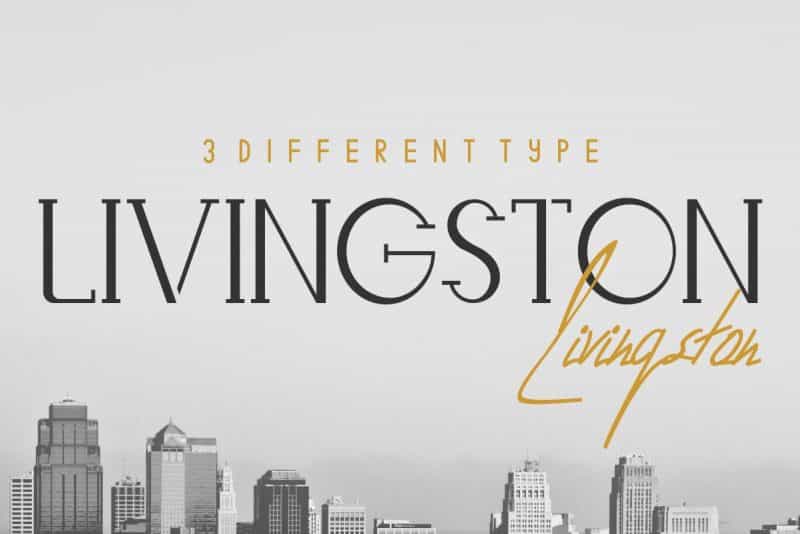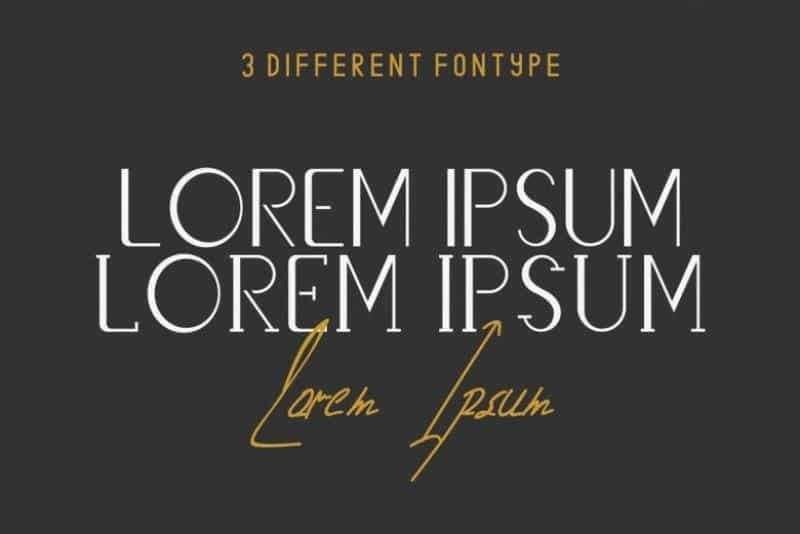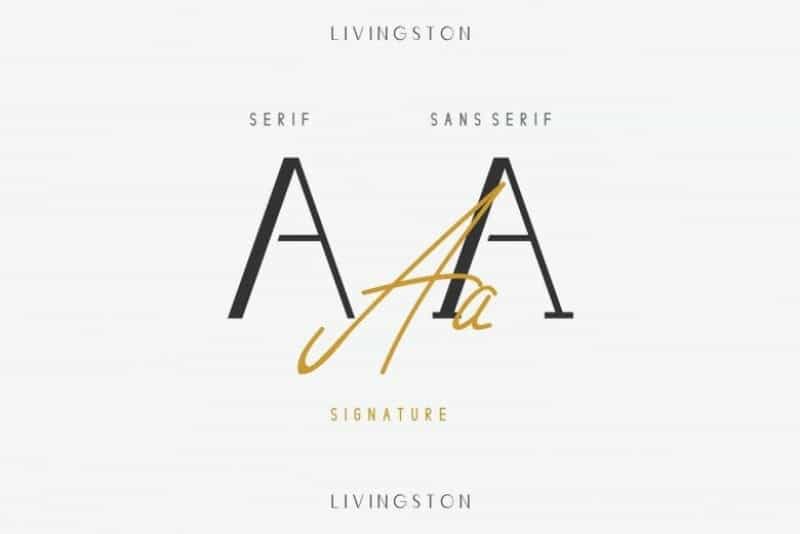
Discover Livingston Font Trio, part of the Sans Serif Handwritten Serif collection—a versatile and unique font perfect for adding a personal touch to your projects. Download it for free and enjoy crafting designs with style, from invitations to social media posts. This font is available exclusively for personal use, giving you the freedom to create without limits. Unlock your creativity with Livingston Font Trio today!
Hola!Introducing our newest typeface: Livingston – about it !It’s TRIO!!!!These family font comes with: Serif, Sans and Script are the three basic types of fonts. This is a new and modern font. And a script handwriting that has a feminime signature style font. Elegant Sans and Exclusive Serif font.